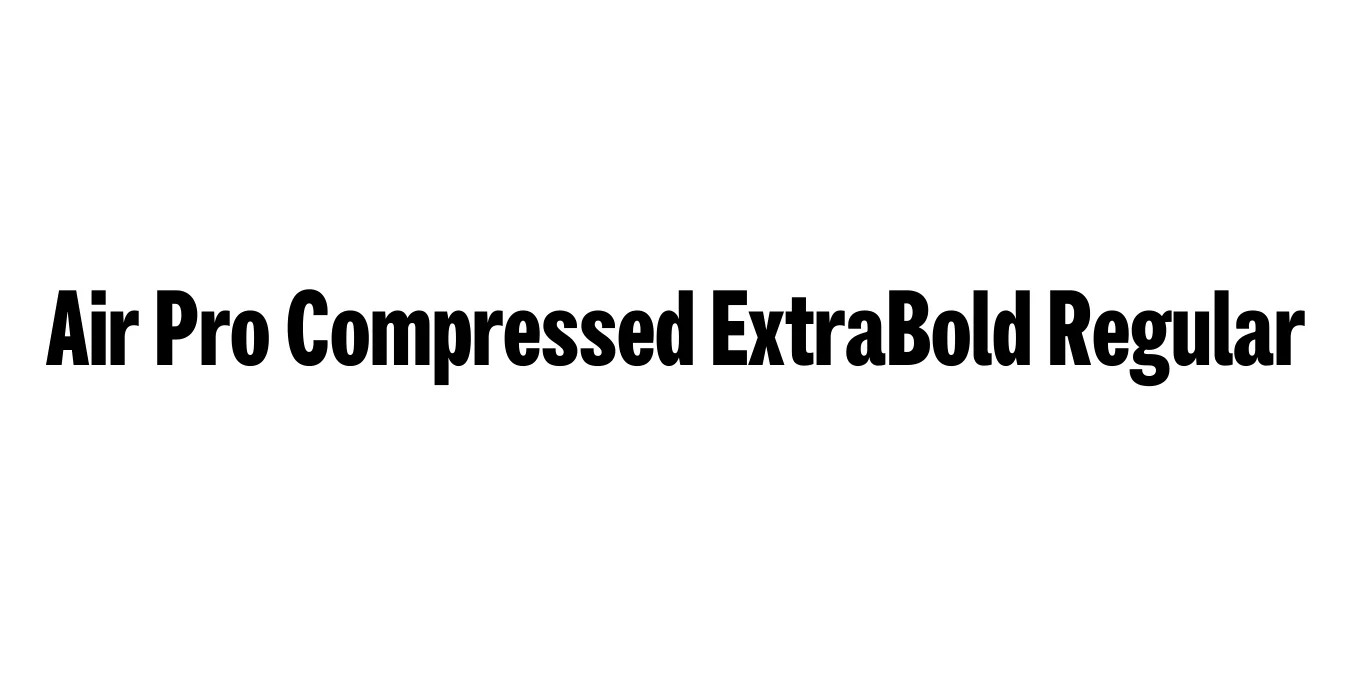
Air Pro Compressed ExtraBold Regular
Designed by Neil Summerour
Air Pro Compressed ExtraBold Regular is a powerhouse of a typeface designed by the renowned Neil Summerour. Part of the expansive Air typographic system, this specific variant focuses on maximizing impact within a minimal horizontal footprint. The Compressed ExtraBold style is defined by its solid, architectural presence and clean, modern lines, making it an essential tool for designers who need to command attention in crowded layouts.
The font is meticulously crafted to maintain high legibility despite its extreme verticality and heavy weight. It bridges the gap between mid-century industrial signage and 21st-century digital aesthetics. Whether used for bold branding or high-energy editorial headers, this font offers a sophisticated yet aggressive personality that works seamlessly across both print and digital platforms.
Air Pro Compressed ExtraBold Regular Best Uses
Perfect for magazine covers and striking headers where space is at a premium.
Ideal for athletic logos, jersey typography, and high-energy promotional materials.
Great for cinematic titles and credits that require a blocky, professional aesthetic.
High-impact for web banners and social media graphics that need to grab immediate attention.